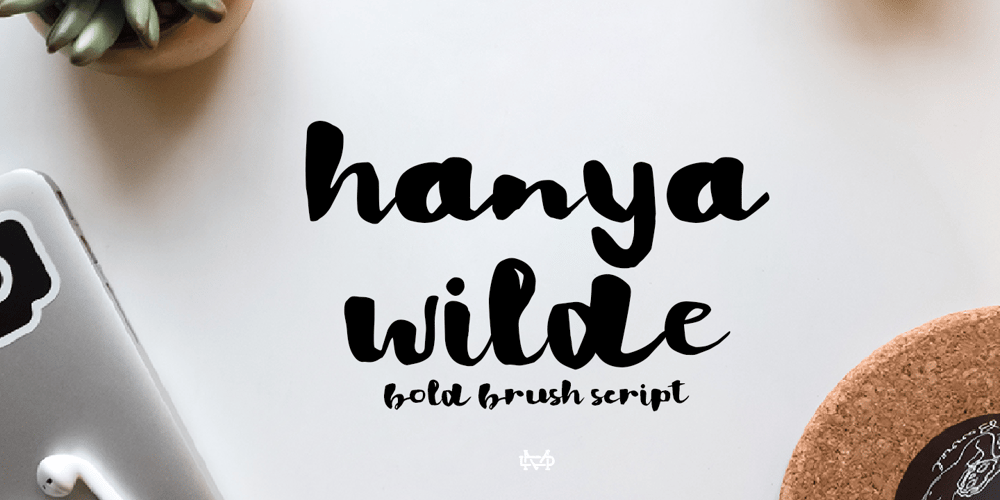
Hanya Wilde
Hanya Wilde font
Hanya Wilde Font Family was designed by madededuk and published by madeDeduk. Hanya Wilde contains 1 styles and family package options. Really excited to introduce Hanya Wilde is a bold brush script! Hanya Wilde will be perfect for all your designs project.Hanya Wilde Included: Uppercase Lowercase Number & Symbol International Glyphs Alternative Ligature If you need anything else just shoot me on email at: dedukvic@gmail.comHope you enjoy it.